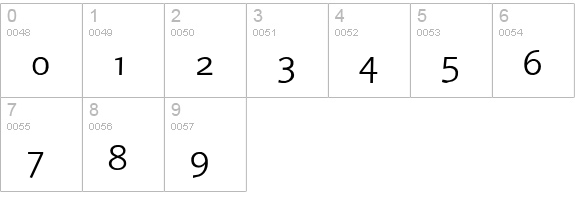
BeoSans5 Font Details
BeoSans5 is a modern and versatile sans-serif font that exudes a sleek and professional aesthetic. With clean lines and a balanced design, this font is perfect for a wide range of projects, from branding to editorial design. Its crisp letterforms make it highly legible in both print and digital formats, ensuring clear communication of your message. What sets BeoSans5 apart is not only its stylish appearance but also its accessibility - it is available for free download at FontsMarket.com. This means that you can easily incorporate this high-quality font into your projects without breaking the bank. Whether you're designing a website, creating marketing materials, or crafting a publication, BeoSans5 is a reliable choice that will elevate your work to the next level. Download it today and unleash your creativity with this exceptional font.